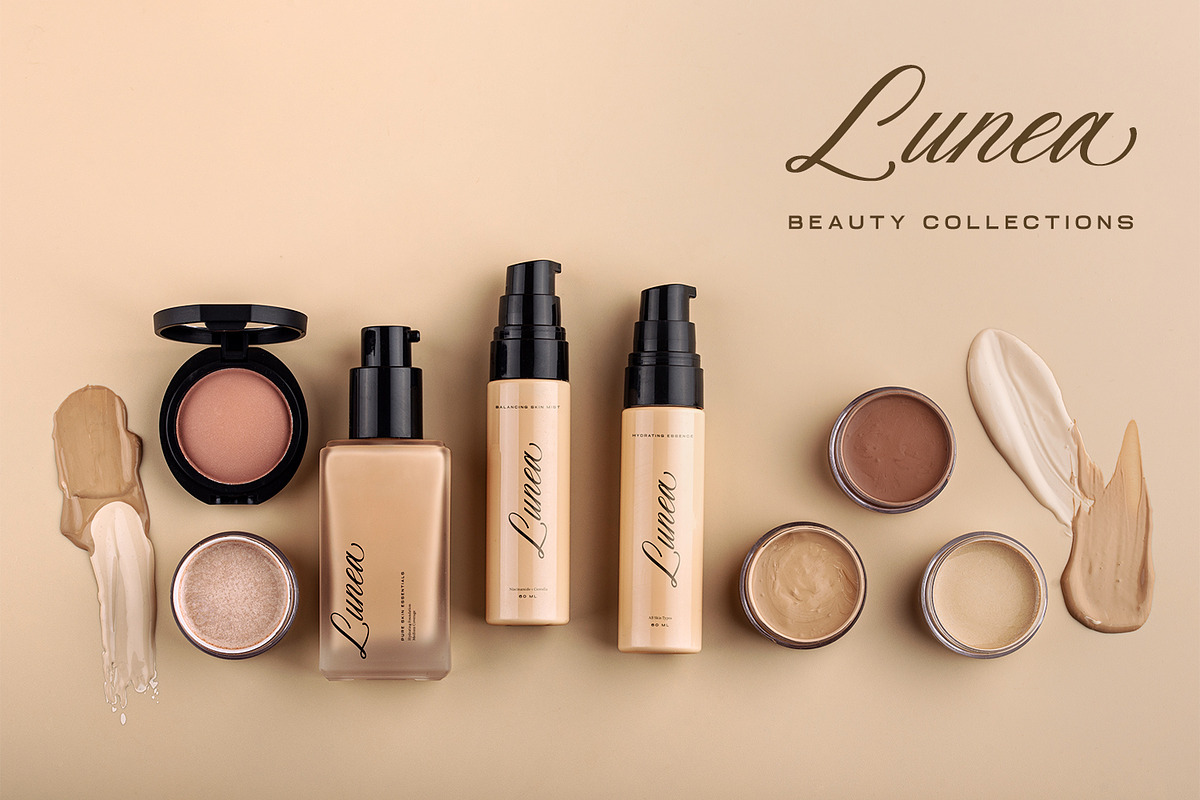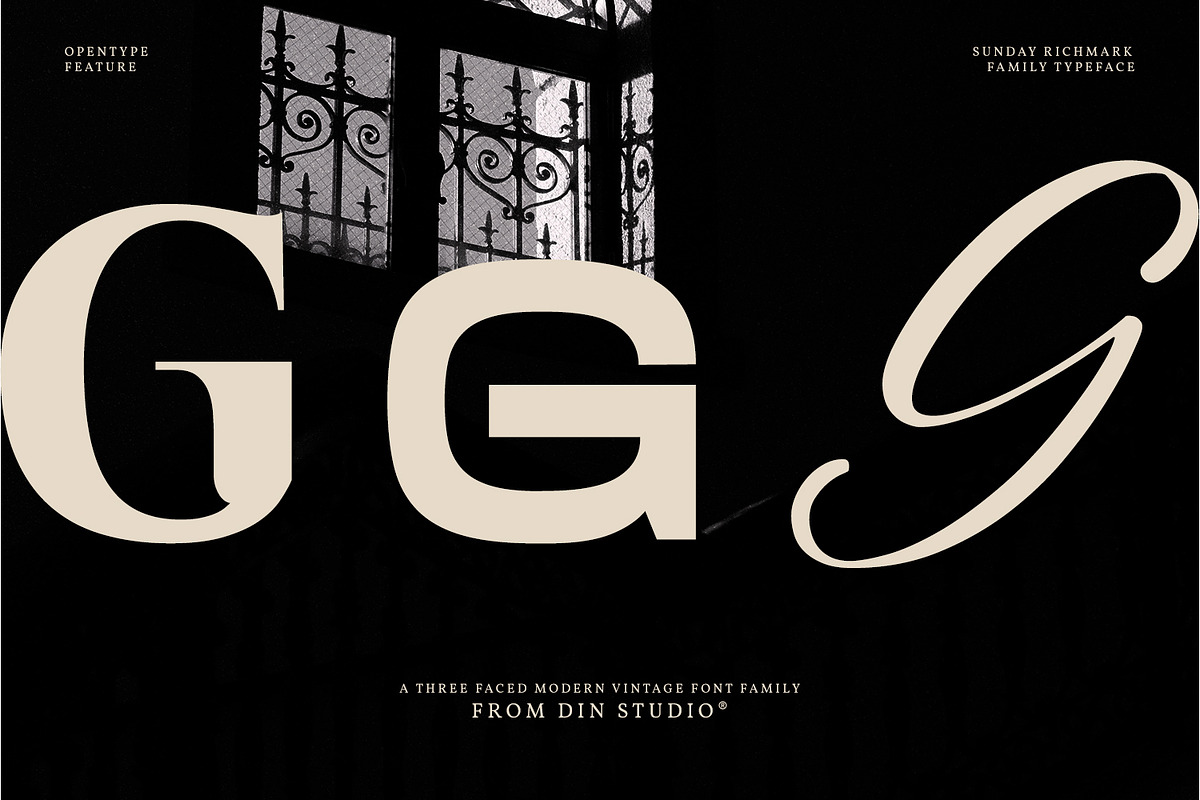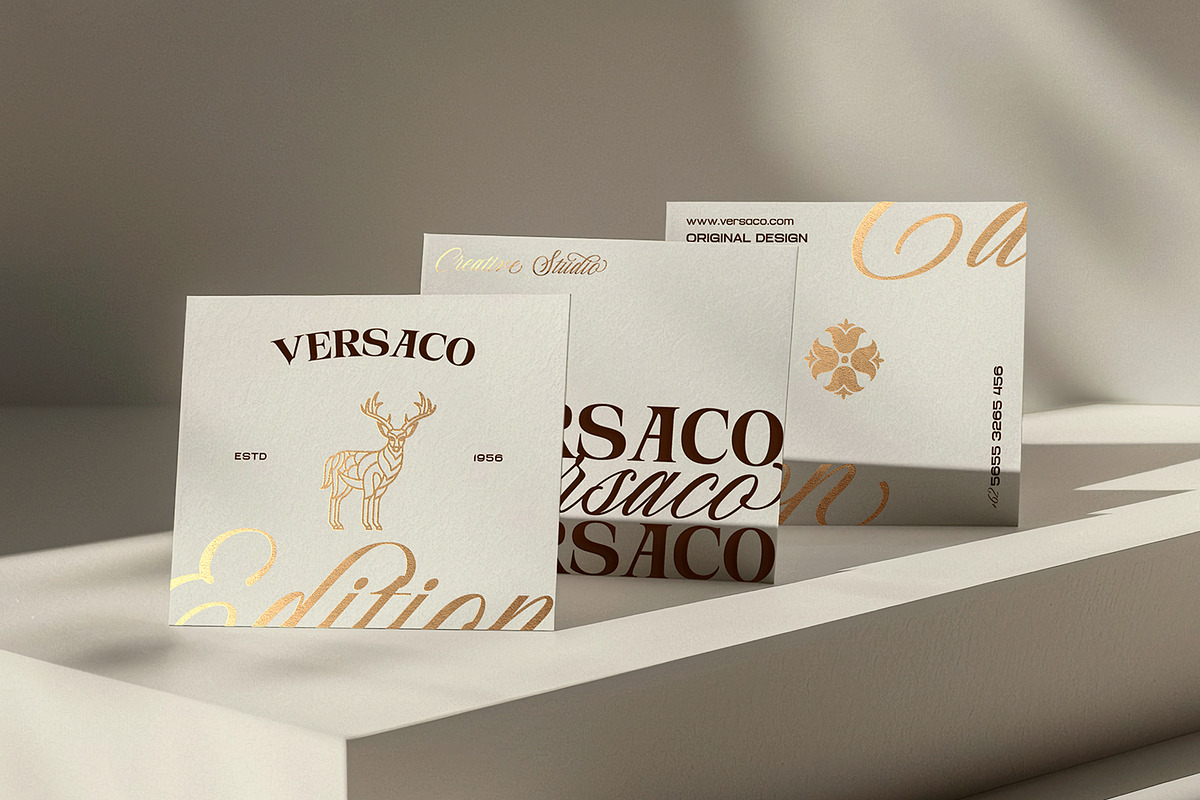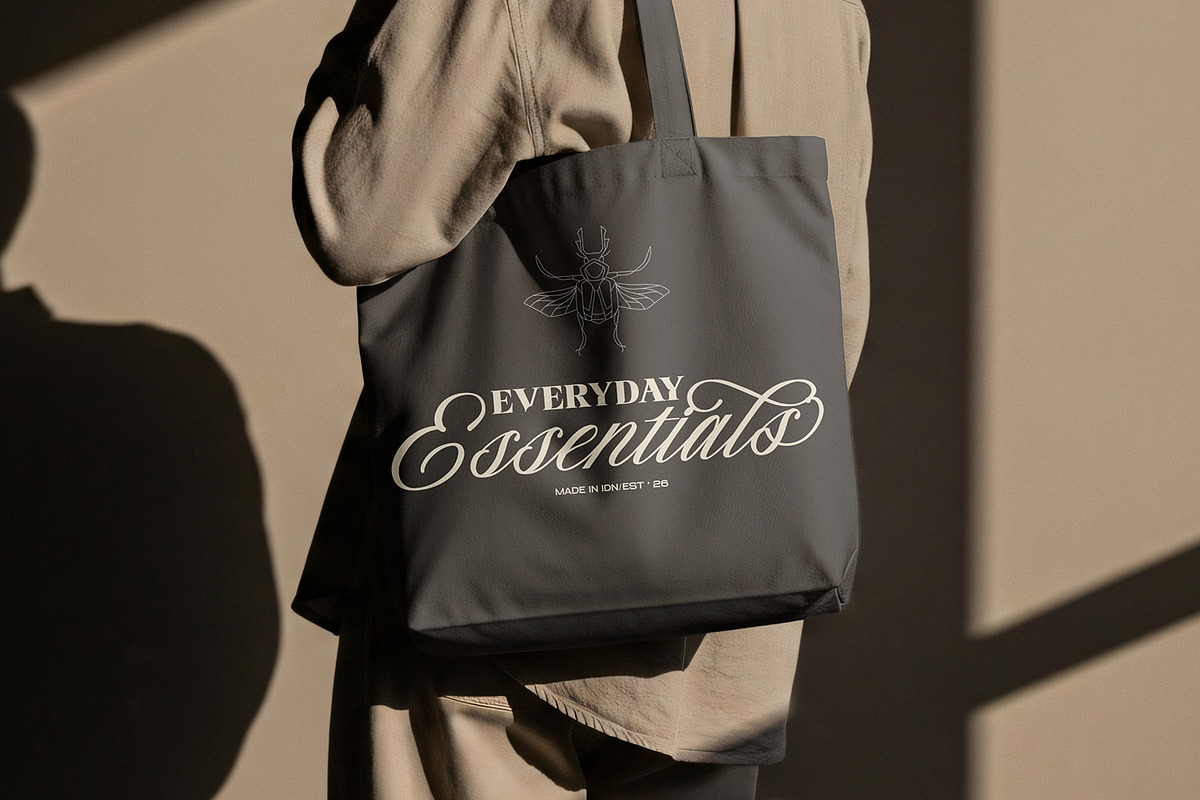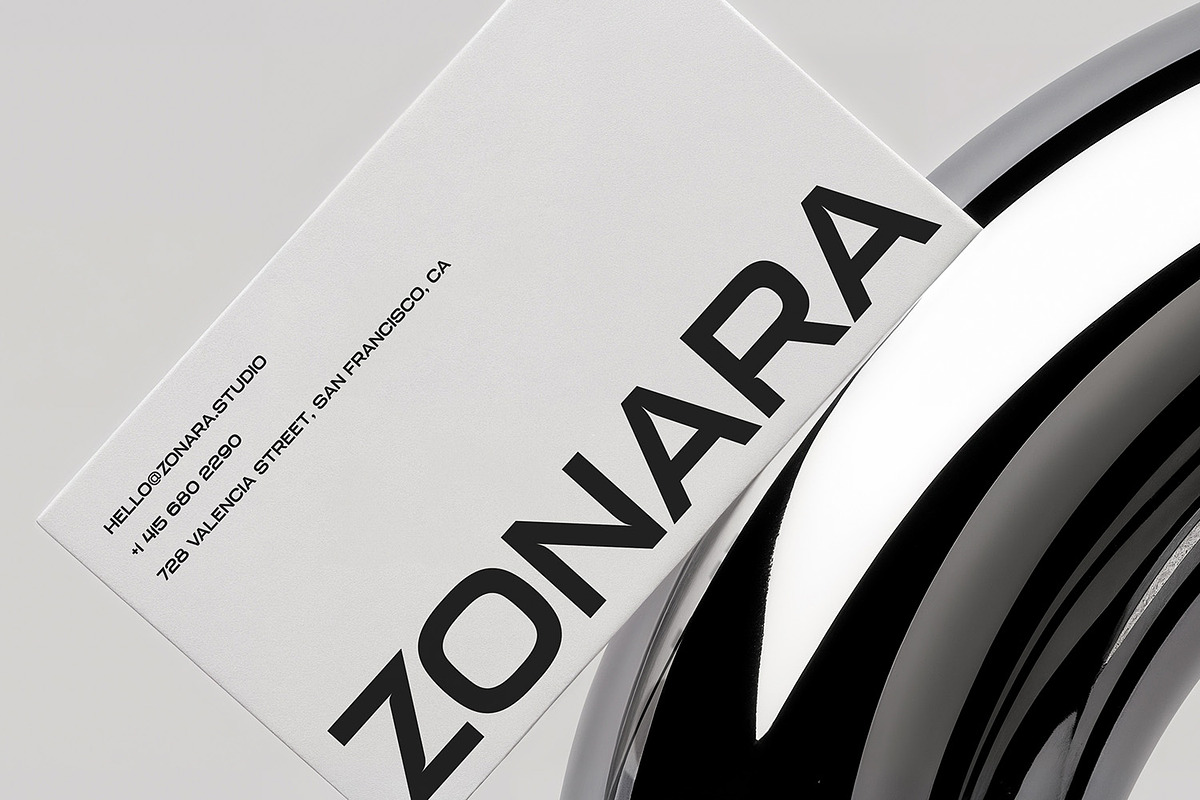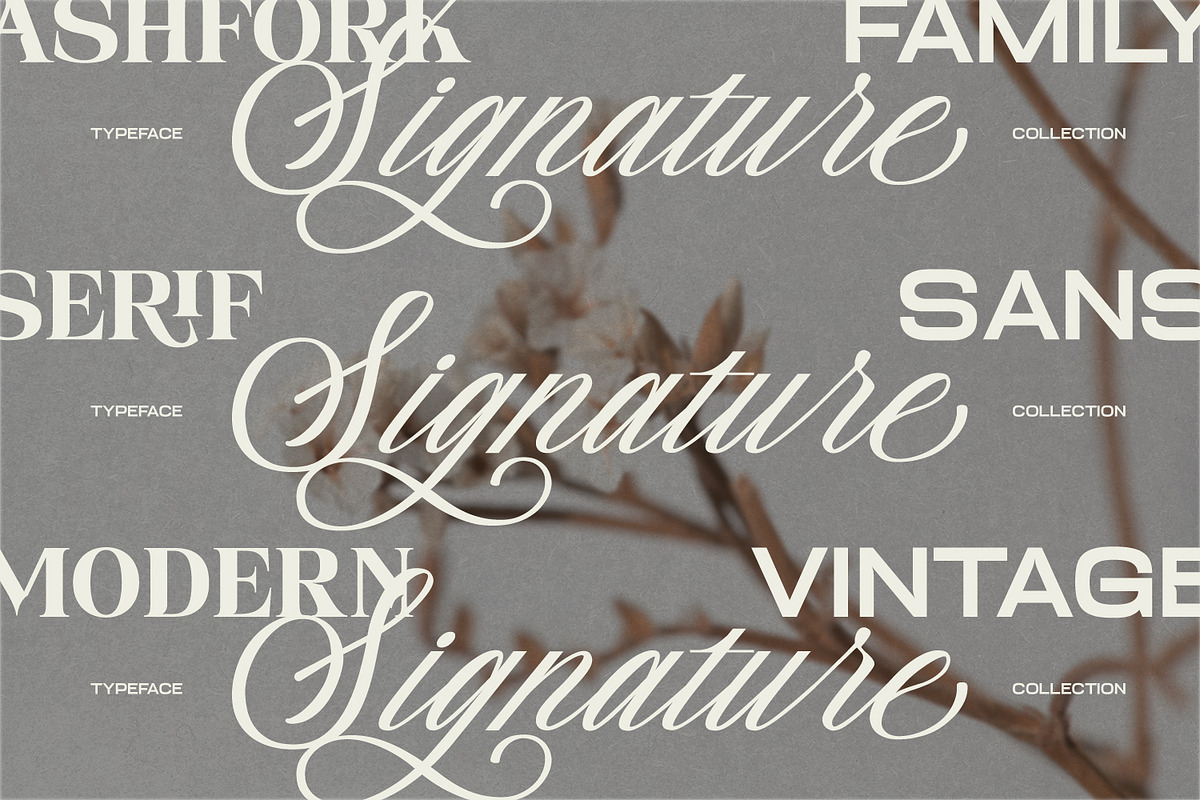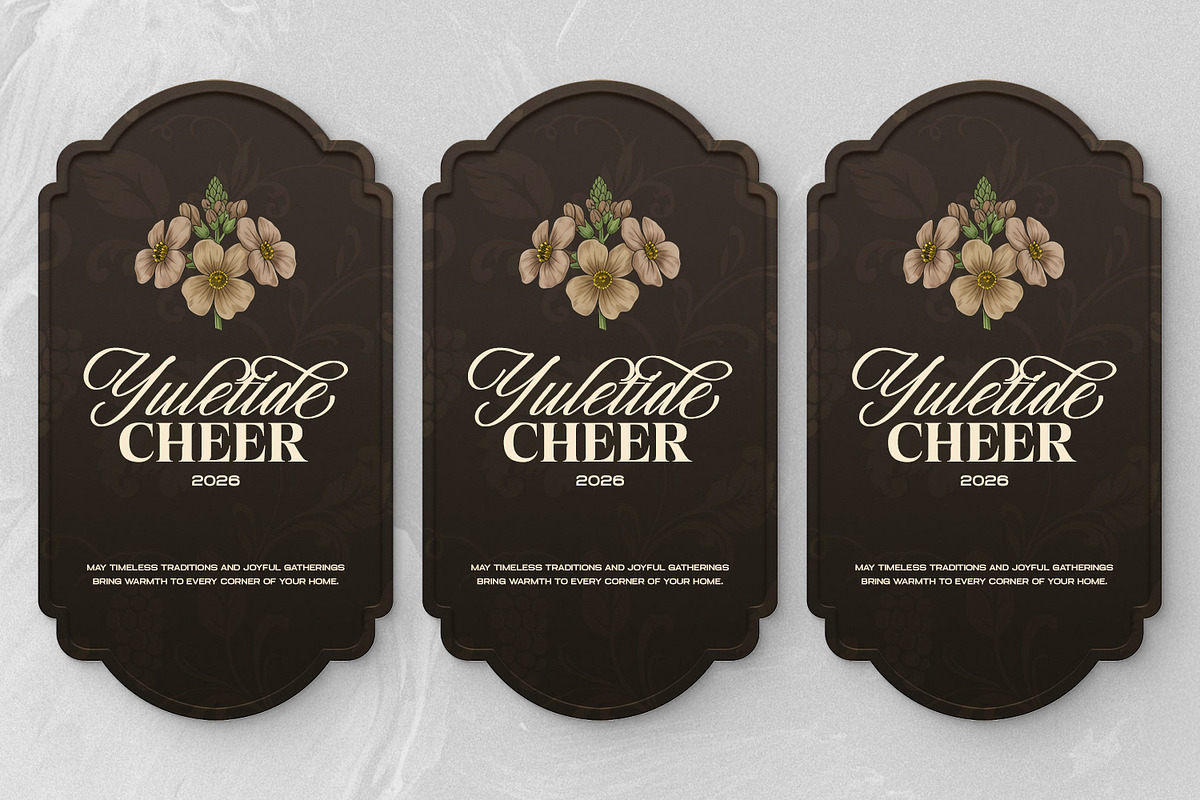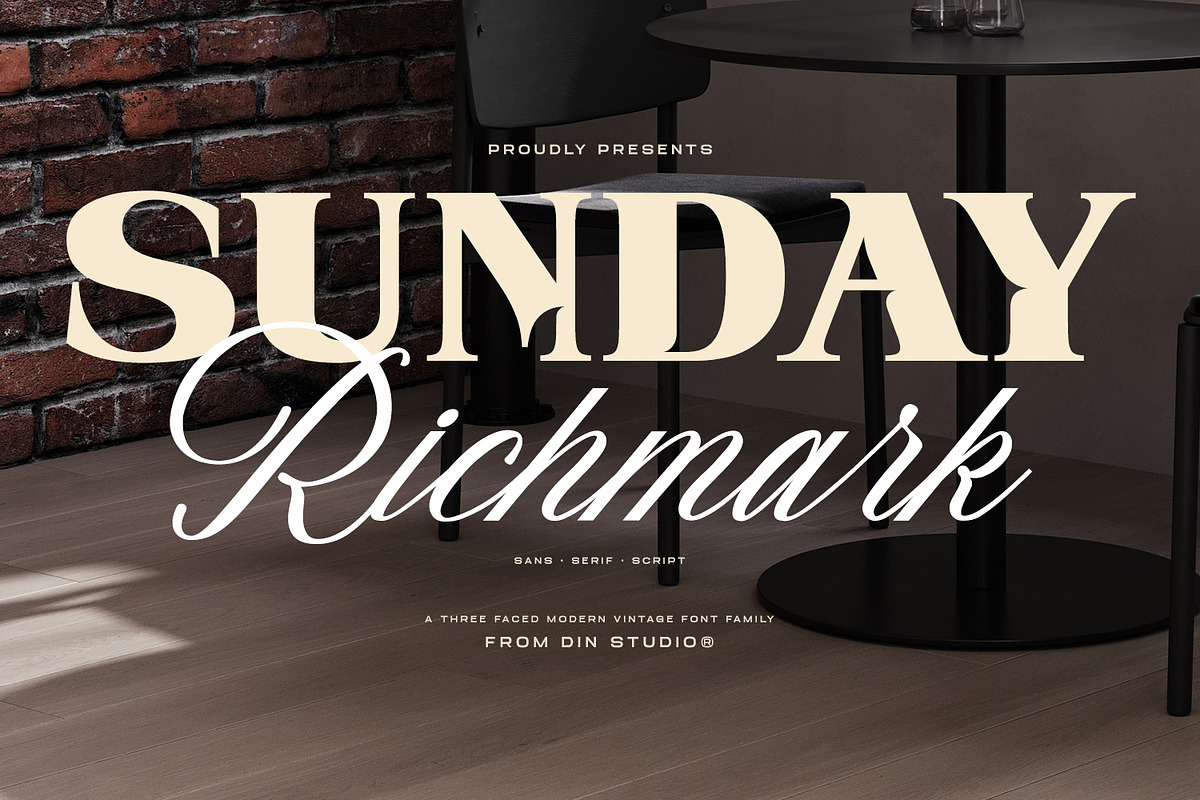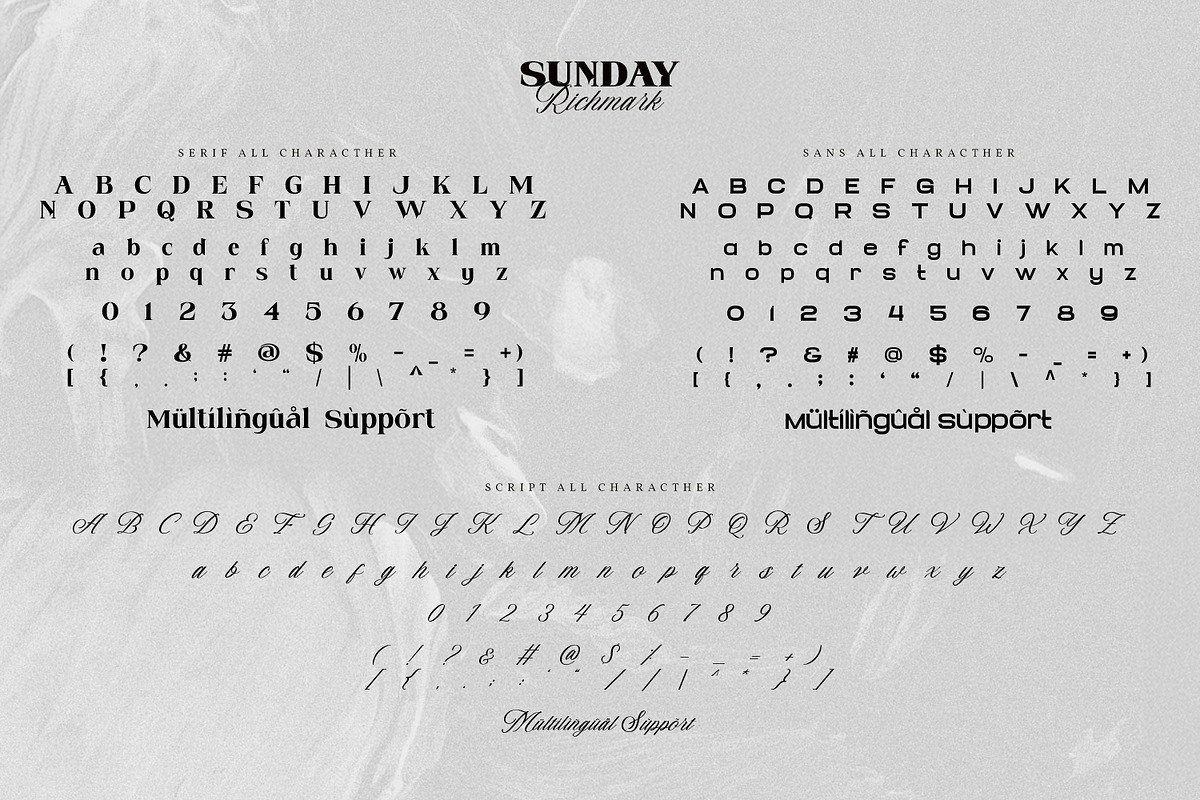
Sunday Richmark Serif Script Family
Sunday Richmark is a versatile modern vintage font trio featuring sans serif, serif, and script fonts designed to work beautifully together. This three-style font family combines modern simplicity, classic elegance, and expressive calligraphy, making it easy to create sophisticated typography with strong contrast and visual hierarchy.
The sans serif font provides a clean and contemporary foundation, while the serif font adds timeless elegance and vintage character. The script font completes the family with graceful, handcrafted letterforms and an expressive touch. Use each font individually or combine all three to create distinctive and cohesive designs.
Sunday Richmark is ideal for logos, luxury branding, fashion, editorial design, packaging, wedding invitations, magazines, posters, social media, product labels, headlines, and other creative projects. Its combination of serif, sans serif, and script styles makes it especially useful for designers who need a flexible font family for both modern and vintage-inspired designs.
Sans Serif, Serif & Script Styles
Whether you're creating an elegant logo, fashion campaign, editorial layout, luxury packaging, wedding stationery, or brand identity, Sunday Richmark gives you three complementary font styles to build expressive and professional typography.
Explore the previews to discover more ways to use Sunday Richmark in your creative projects.